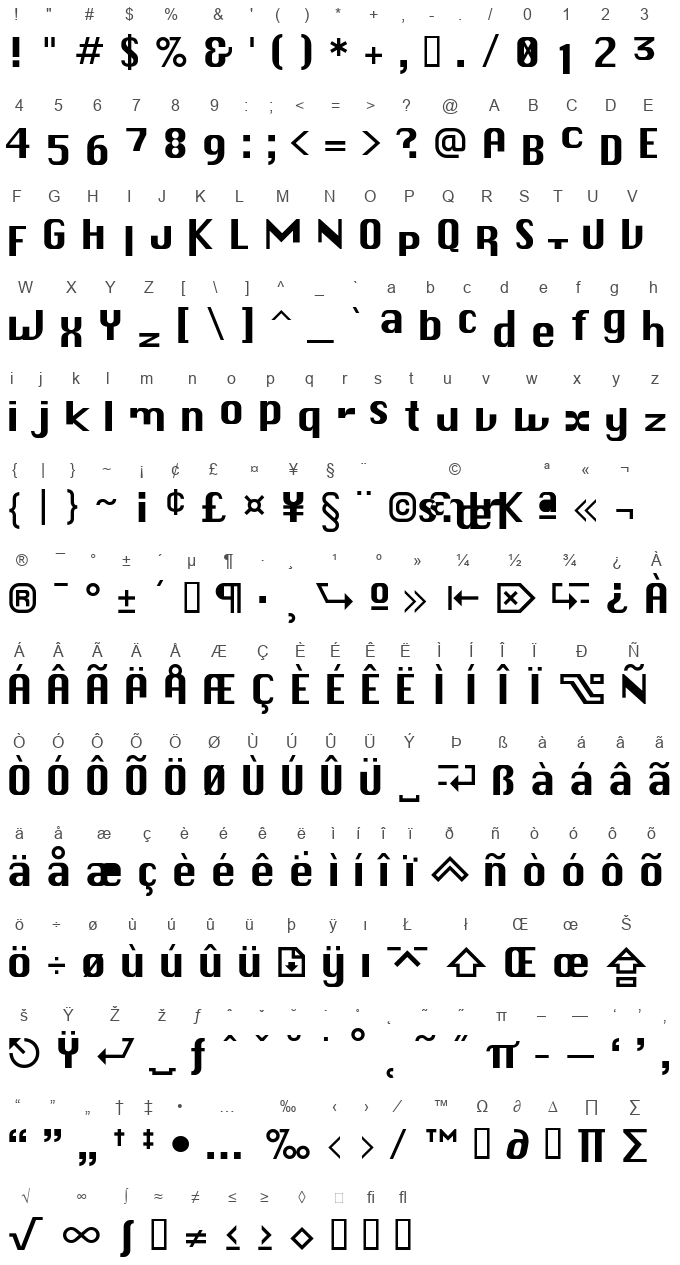
Chicagogo
Another crejaculation from Amsterdam. This font was inspired by the original Chicago‐font © Sander Kessels. Altsys Fontographer 4.0.4 Chicagogo. Altsys Fontographer 4.0.4 27‐04‐94